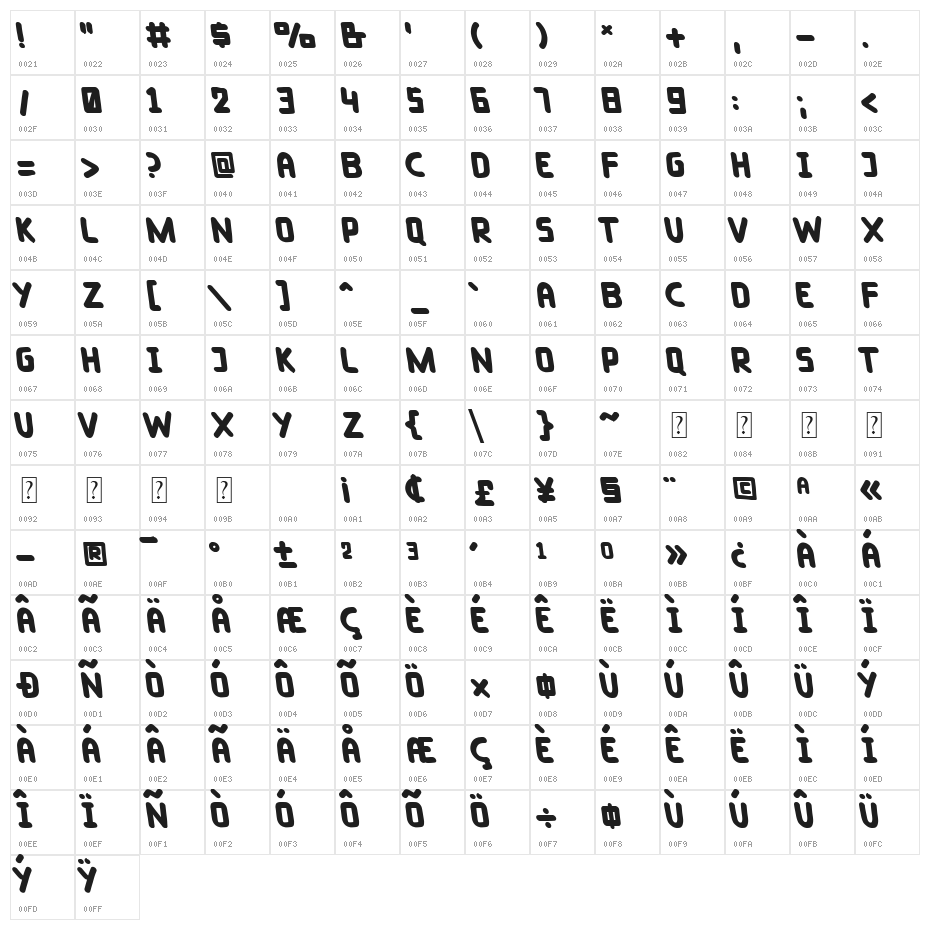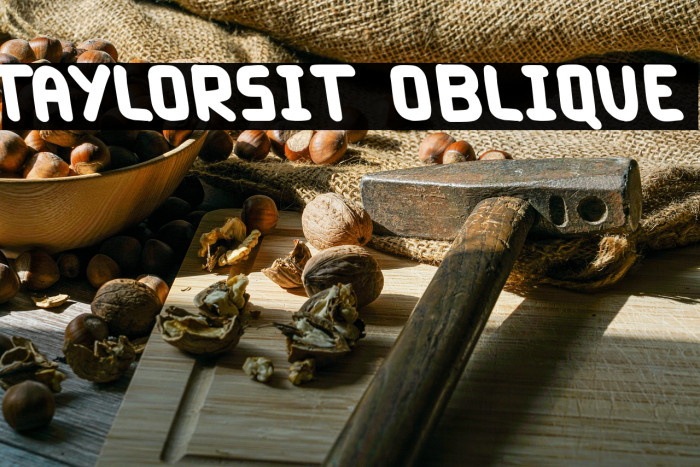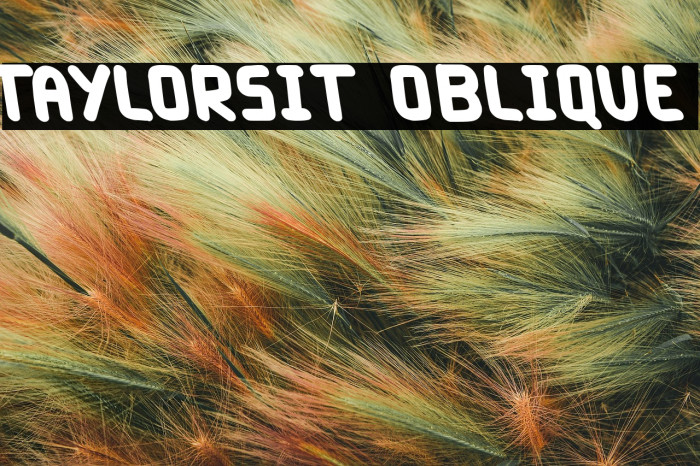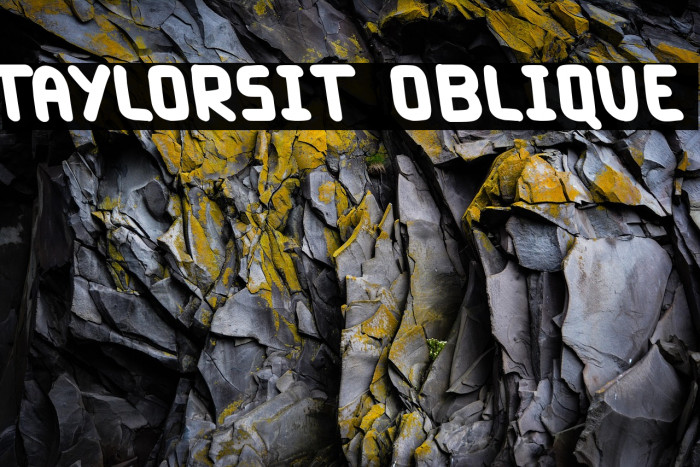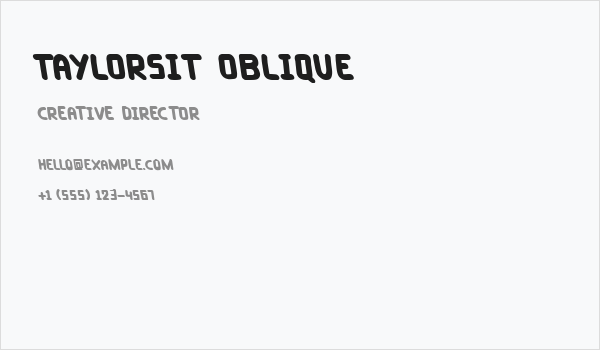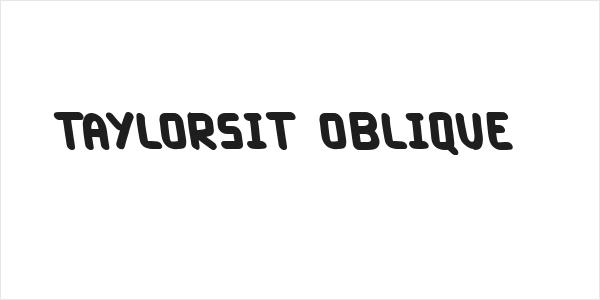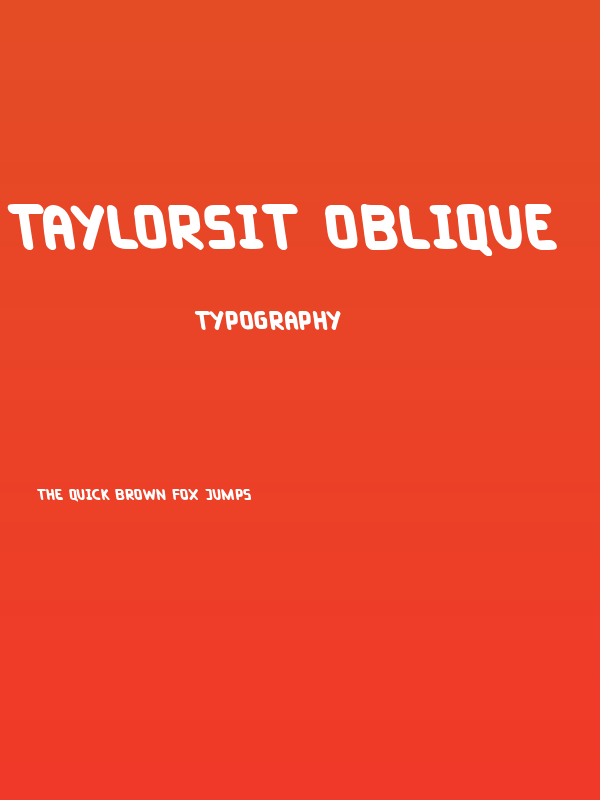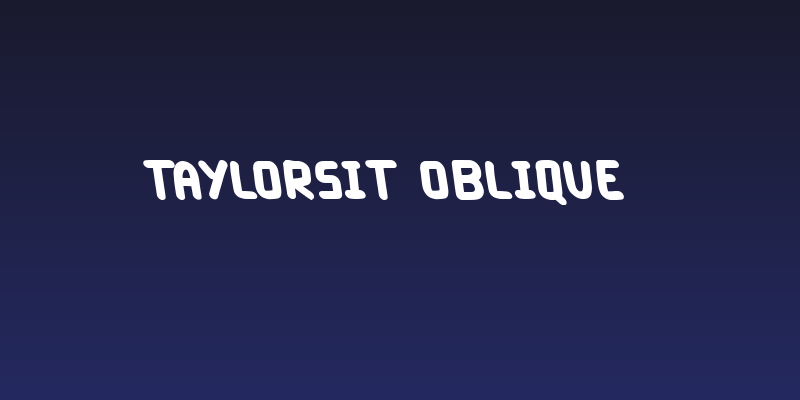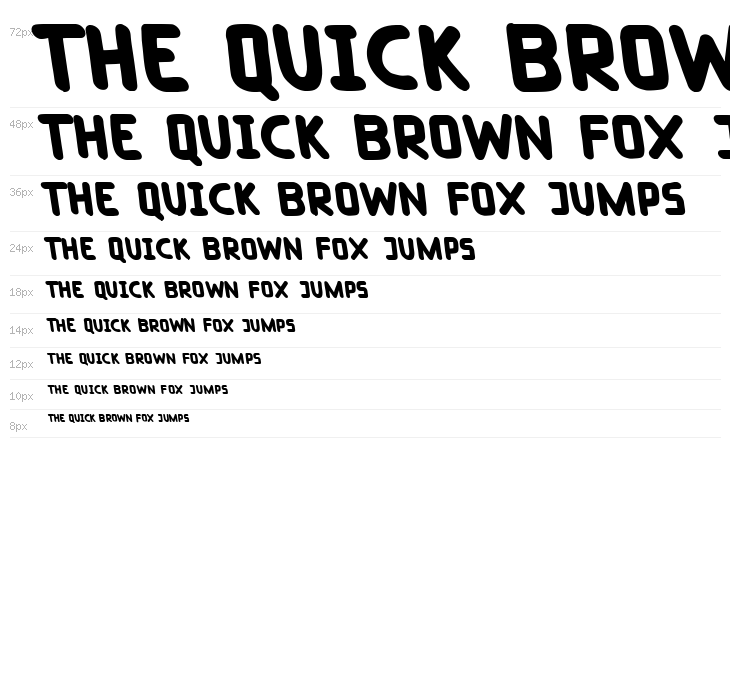
Taylorsit Oblique Font
Taylorsit Oblique Description
This font features a bold and playful style with rounded edges and a slightly slanted orientation, giving it an energetic and informal appearance. The characters are uniformly thick, contributing to a consistent and cohesive look across all letters and numbers. The font maintains a modern and approachable vibe, making it suitable for a variety of creative applications. Its boldness ensures high readability, while the unique slant adds a touch of dynamism. The special characters are designed to match the overall style, ensuring visual harmony throughout.
| Proposed Projects | Ideal for children's books, playful branding, posters, and casual invitations. |